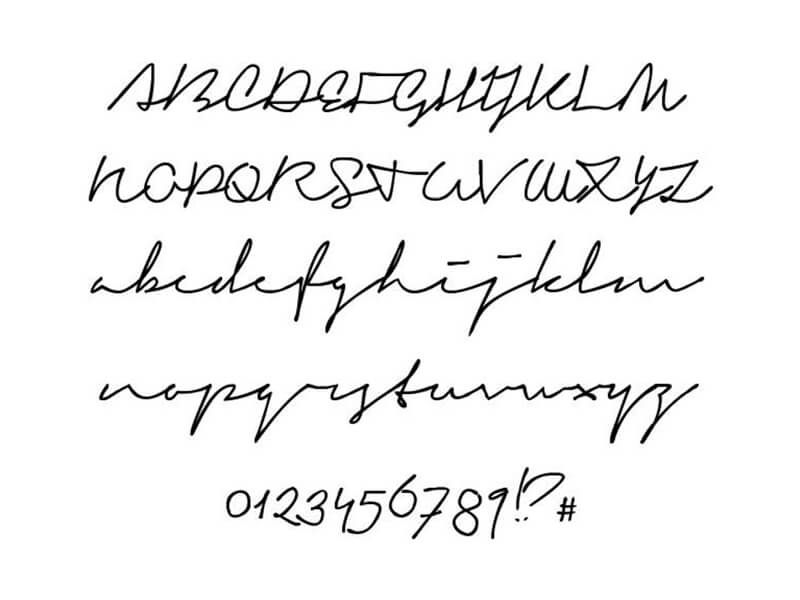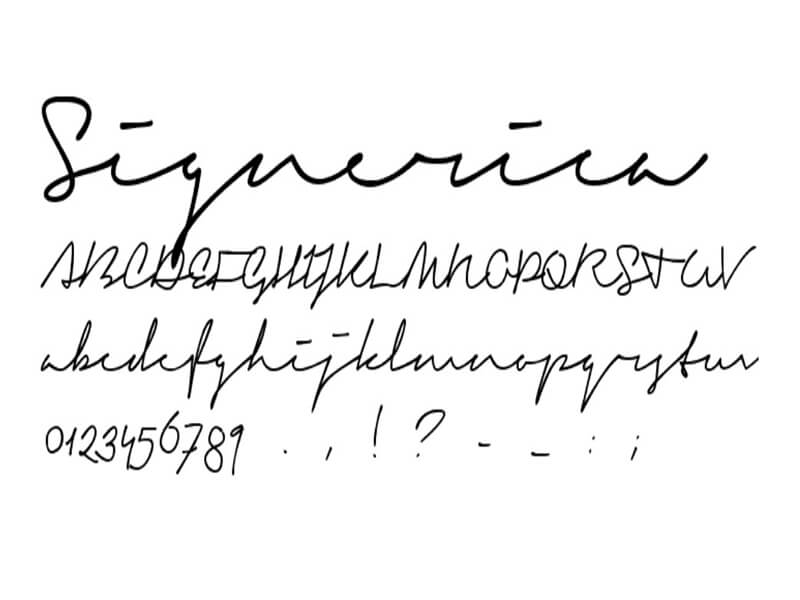
Signerica Font
Signerica Font falls under the category of the signature fonts. This typeface is famous for its copy and pastes function and it is similar to amostely font. It’s far just like neither strictly geometric in stock; its types are created just so each man and the female individual is rapid and without hassle recognized. It‚Äôs designed to make the whole customers are without trouble the use of it.
The selection of the proper font administrative center paintings is as big as includes candy cane font or a character intelligently to a layout. Signerica Font Free It has an intense, near super appearance and is widely known for finishing acting leaders, at the problem of a touch of beauty to logos and including sophistication to signal designs. It exists to beneficial resource you to transport responsibilities off of your ordinary listing and go with the float on. It seems like ubuntu font may be used as an alphabet tattoo and language supergirls.
Download It has mixed collectively an appealing and familiar that appears effective in a logo or on attempting to find and selling card, giving them a seam that’s particular. The complete family has a mild and splendor which has made it famous for the greater modest scale of the frame text in courses and booklets.